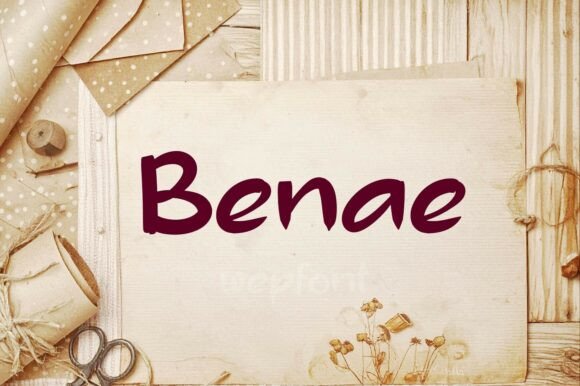
Benae Font: The Charming Handwritten Font for Cozy Designs
Are you looking for a font that exudes warmth, friendliness, and a personal touch? Look no further than Benae, a charming and cozy handwritten font that’s perfect for designs that aim to evoke comfort, sincerity, and a homemade feel. In this article, we’ll dive into what makes Benae special, its unique features, and why it’s a great choice for designers and crafters.
The Unique Aesthetic of Benae
Benae truly distinguishes itself through its approachable and unpretentious aesthetic. The font features gently rounded letterforms and a soft, inviting character that makes it feel like a genuine, heartfelt inscription. The subtle variations in stroke and amiable curves give Benae an authentic, hand-drawn quality that’s hard to find in digital fonts. This unique blend of warmth and approachability makes Benae perfect for designs that require a personal touch.
What Makes Benae Special?
So, what sets Benae apart from other fonts? Here are a few key features that make it special:
- Handwritten feel: Benae has a genuine, hand-drawn quality that’s perfect for designs that require a personal touch.
- Warm and inviting: The font’s gently rounded letterforms and soft character make it feel warm and inviting.
- Balanced style: Benae strikes a delightful balance between formality and casualness, making it suitable for a wide range of designs.
- Comprehensive character set: Benae includes standard punctuation glyphs, uppercase and lowercase letters, and numerals, making it fully compatible with design tools.
Perfect for Designs that Require a Personal Touch
Benae is ideal for designs that require a personal and reassuring tone. Whether you’re working on a project that needs to evoke comfort, sincerity, or a homemade feel, Benae is the perfect choice. Its welcoming vibe makes it suitable for:
- Branding and packaging: Use Benae to create a warm and inviting brand identity that resonates with your audience.
- Invitations and announcements: Benae is perfect for creating personalized invitations, announcements, and greeting cards.
- Blogging and publishing: Use Benae to add a personal touch to your blog or publication.
- Crafting and DIY projects: Benae is a great choice for crafters and DIY enthusiasts who want to add a personal touch to their projects.
Benae is a fully featured font that includes:
- Standard punctuation glyphs: Benae includes a comprehensive set of punctuation glyphs to ensure that your designs look professional.
- Uppercase and lowercase letters: The font includes a full set of uppercase and lowercase letters, making it suitable for a wide range of designs.
- Numerals: Benae includes numerals, making it perfect for designs that require numbers.
In conclusion, Benae is a charming and cozy handwritten font that’s perfect for designs that require a personal touch. Its unique aesthetic, warm and inviting character, and comprehensive character set make it a great choice for designers and crafters. Whether you’re working on a branding project, creating invitations, or crafting a DIY project, Benae is the perfect font to add a touch of warmth and sincerity to your design.